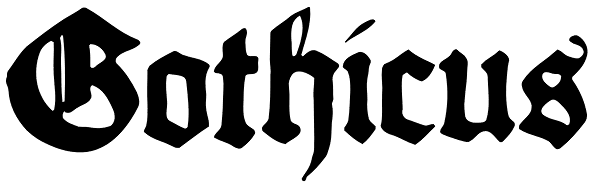
Gothicus
From original samples of Rudolf Koch's Maximilian, Gothicus and Gothicus Alternate have Fraktur style captials, Gothicus Roman has Roman capitals. All three have the same lower case which includes three swash characters for g, s and t, available as...
Gothicus Alternate
Gothicus Roman
Gothicus